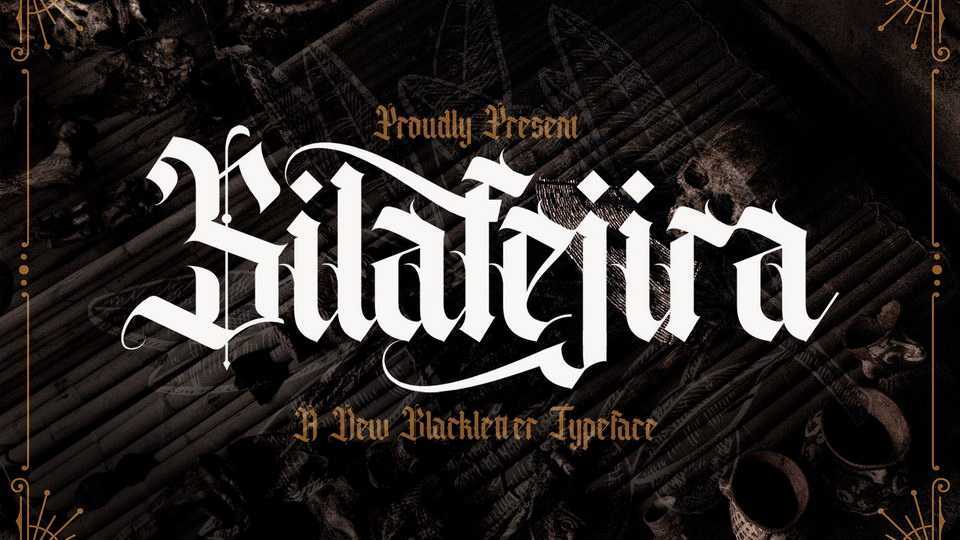
Download Silafejira font, an incredibly authentic and daring blackletter calligraphy typeface. Add Silafejira to your favorite creative ideas and notice how it makes them stand out.